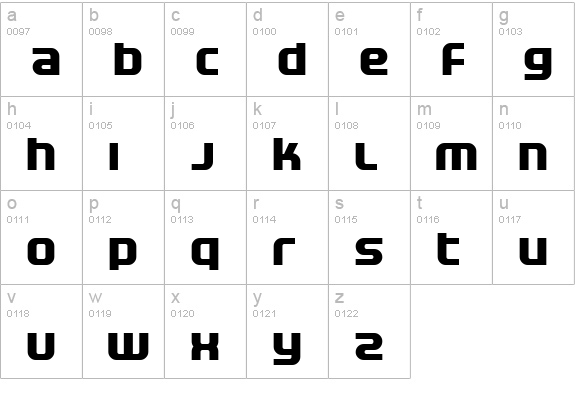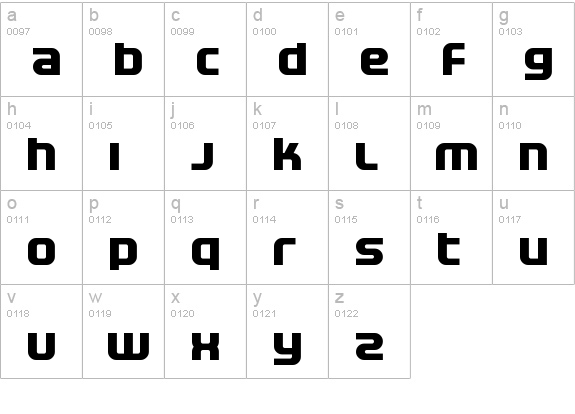
Electrofied Bold Font Details
Electrofied Bold is a strong, high-contrast variant in the Electrofied typeface family \xE2\x80\x94 well suited to headlines, attention-grabbing titles, and strong calls-to-action.
Introducing Electrofied Bold, a striking and dynamic font that will electrify your designs with its modern and energetic look. This bold typeface features sharp lines and distinctive letterforms that command attention and make a bold statement in any project. Perfect for headlines, posters, branding, and more, Electrofied Bold exudes a sense of power and creativity. What's even better is that Electrofied Bold is available for free download at FontsMarket.com. This means you can easily add this eye-catching font to your collection without any cost. Don't miss out on the opportunity to enhance your designs with the electrifying energy of Electrofied Bold. Download it today and let your creativity shine!